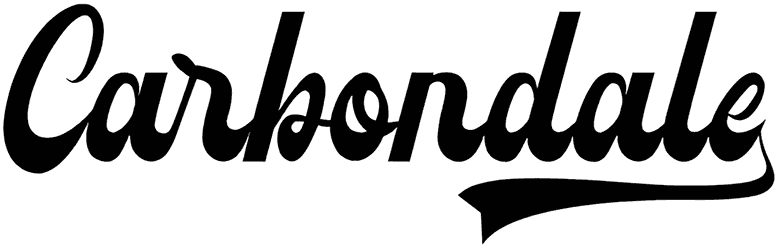
Carbondale Font
Looking illuminated by script font, execute an exceptional job in highlighting any shows without any witch to hocus-pocus! Carbondale font with classic bold letters can be great for any matter, right? It’s a matter of two seconds tops to crack the whole thing!
This baseball font, despite lacking numbers, creates a dramatic look for your magazine, posters, social media posts, etc. Tap the download to start it off! There is one single step to reach your masterwork right here!